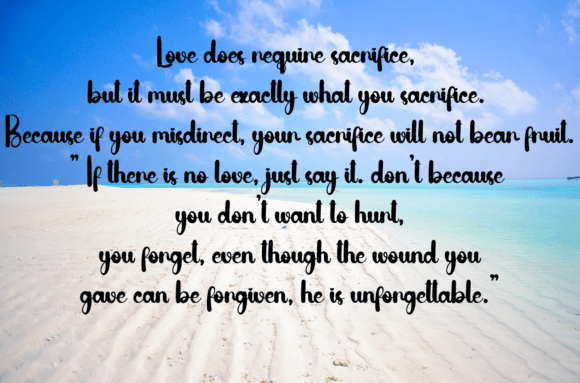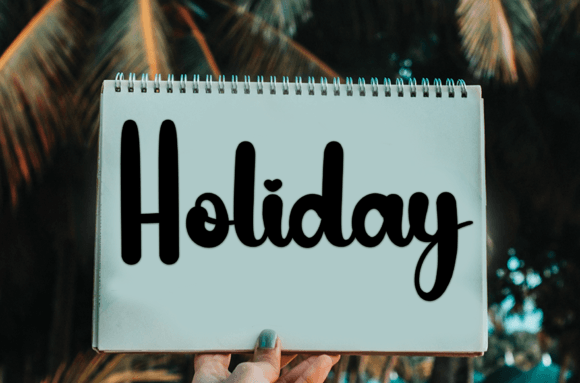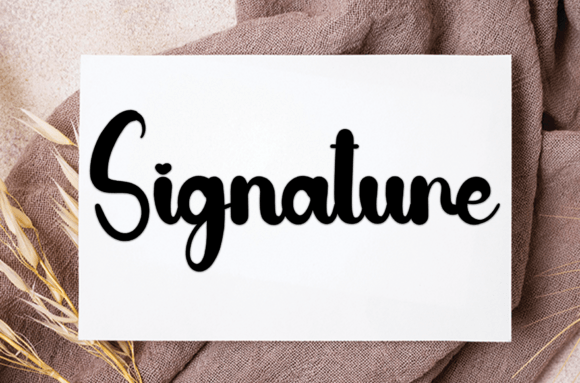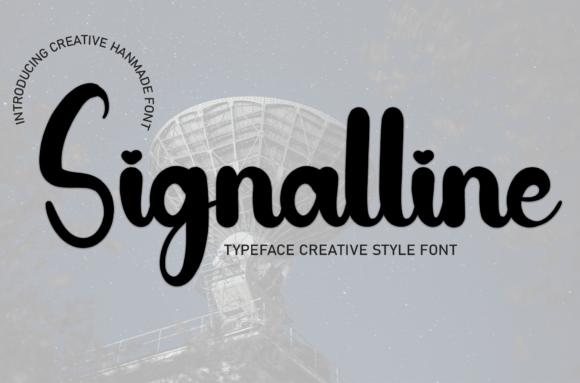
Introduction to Signalline Font
Signalline is a sweet handwritten font.
Friendly and cute, this font is ideal for writing wedding invitations, cards, or any other design that might need a fun touch .
Key Features of Signalline Font
Why Choose Signalline Font?
Signalline Font offers exceptional quality and versatility, making it a valuable addition to your design toolkit. Whether you’re creating for personal projects or commercial use, Signalline Font delivers professional results.